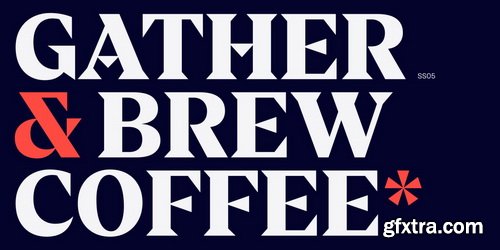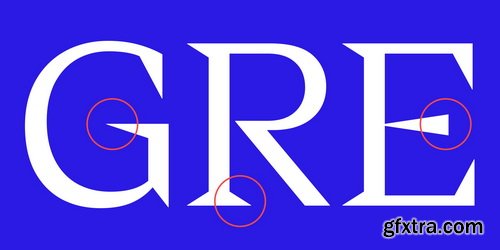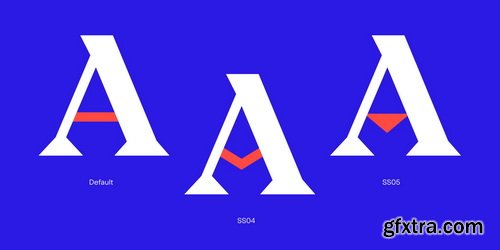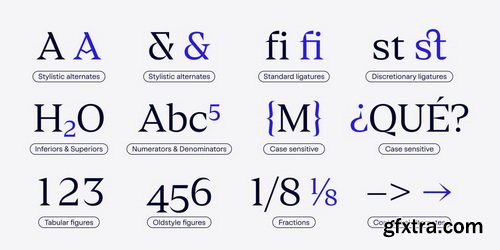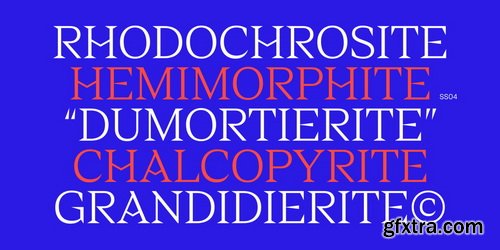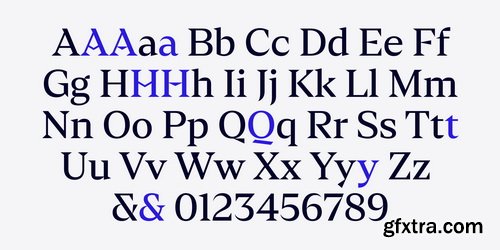
Azurio is a modern, sharp serif type family ranging from light to black. Still elegant but with strong personality at the same time. Its design is inspired by minerals, evident in the numerous geometric and triangular details reminiscent of the mineral Azurite – that’s where the name comes from. The strong connection to the geometry and crisp shapes of minerals can be also found in its squared counters and pointed wedge serifs. As a contemporary typeface with a distinct personality, Azurio is perfectly suited for punchy headlines and logos. Its large x-height and moderate contrast also make it effective for smaller and longer texts as well. Azurio is the perfect display font family for projects where personality is key. It fits well in branding, visual identities, logo design, print, editorial design, and more.